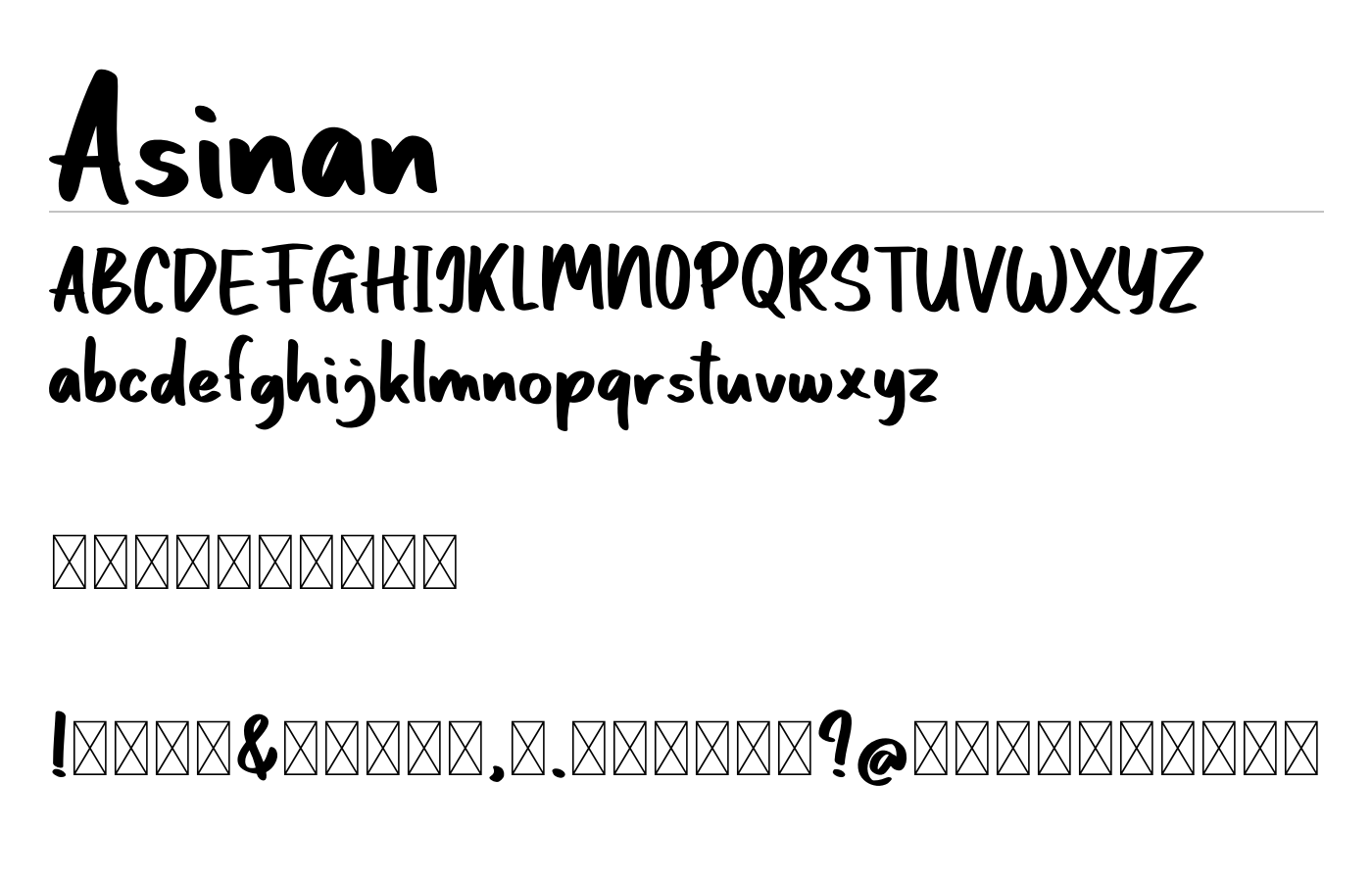
Asinan is a playful, casual handwritten sans serif font with a bold weight and a friendly, approachable character. Its rounded, slightly irregular letterforms convey warmth and informality, making it ideal for creative projects, children’s materials, and lifestyle branding that seek a personal touch. This font works well for headlines, logos, and social media graphics where a fun, human feel is desired.
Asinan Font
About Asinan Font
| Font family | Asinan Font |
| Designer | Ana Natalia |